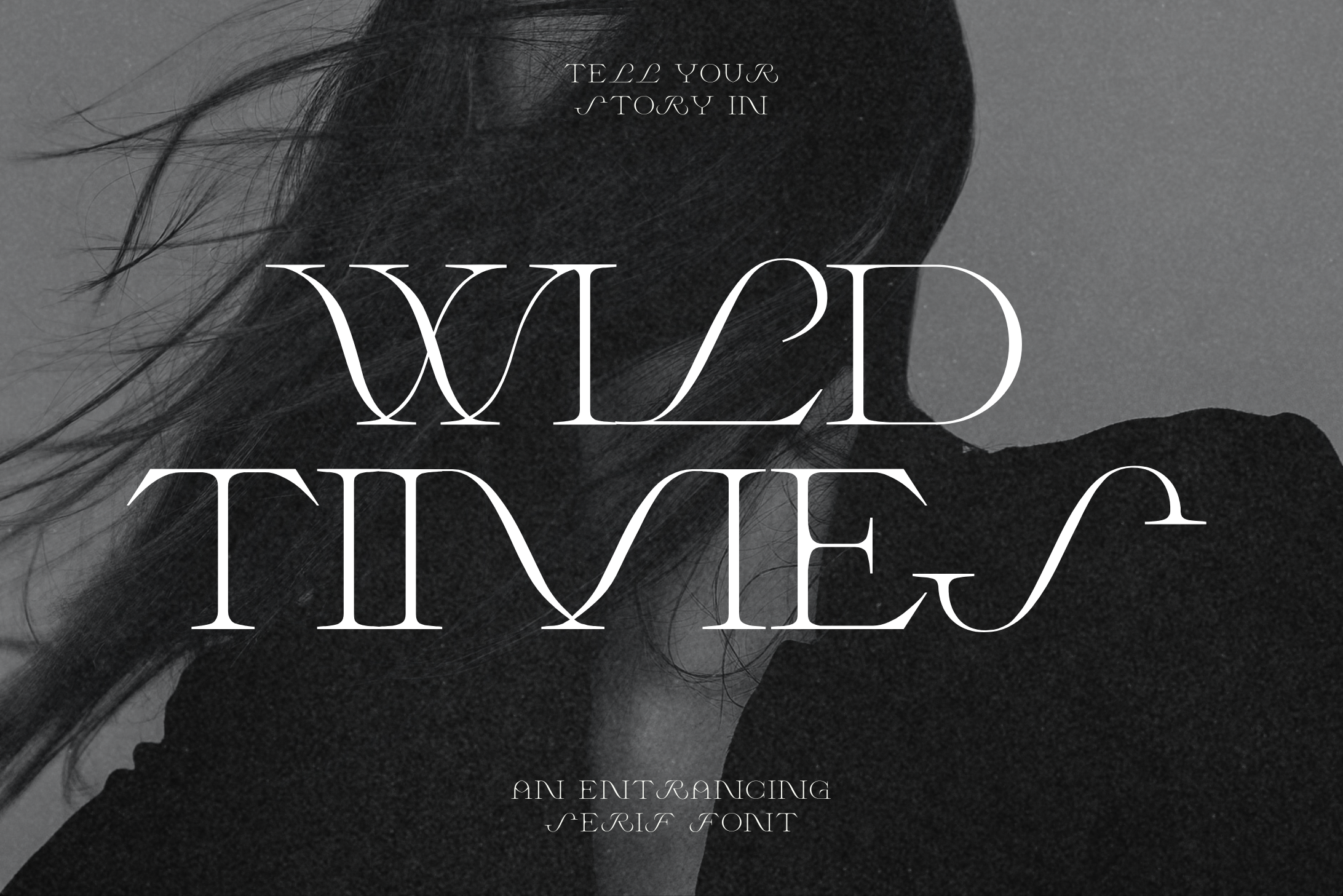
Wild Times Serif Font
Wild Times is a typeface that lives at the intersection of classic elegance and modern mystique — where sophisticated meets otherworldly.
Its flowing letterforms move fluidly between traditional refinement and something altogether more enchanting, giving your designs a presence that's polished yet impossible to ignore. Whether you're drawn to old-world charm or contemporary edge, Wild Times holds both without compromise.
Use it for branding, editorial work, packaging, wedding invitations, book covers, social content, or anywhere you want type that carries genuine atmosphere. It pairs beautifully with clean sans-serifs and minimal layouts, letting the character of the letterforms breathe and lead.
Every project deserves type with personality. Wild Times delivers.